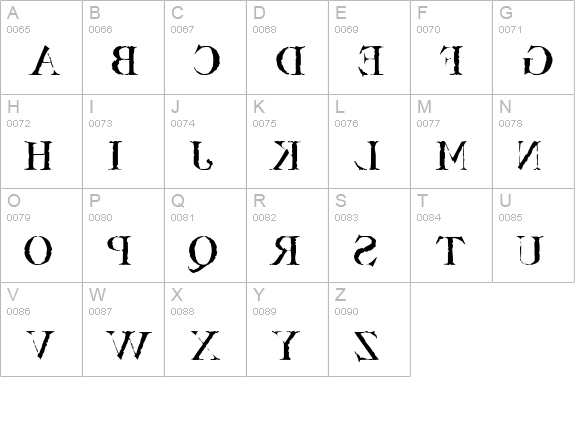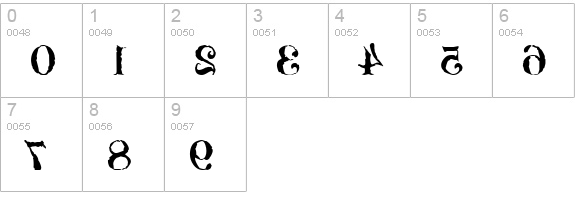
Bassackwards Font Details
Bassackwards font is a whimsical and unique typeface that is sure to make your designs stand out. This font features quirky and playful characters that appear to be flipped and turned around, creating a fun and unconventional look. Whether you're working on a poster, logo, or any other creative project, Bassackwards font will add a touch of originality and charm. The best part is that Bassackwards font is completely free to download at FontsMarket.com. This means you can easily access this eye-catching font and incorporate it into your designs without any cost. Don't miss out on the opportunity to add a fun and creative twist to your projects with the Bassackwards font – download it today and let your creativity flow!